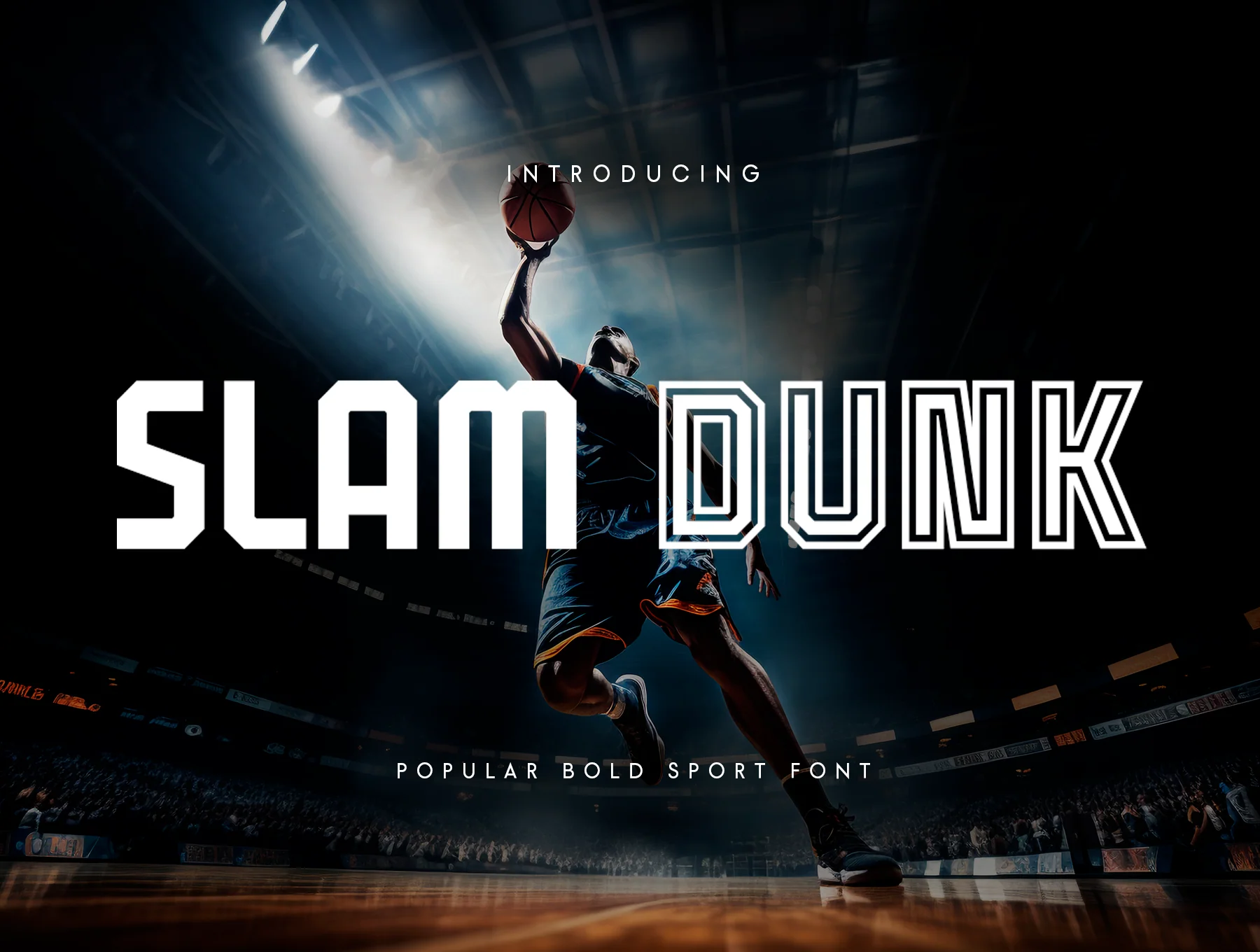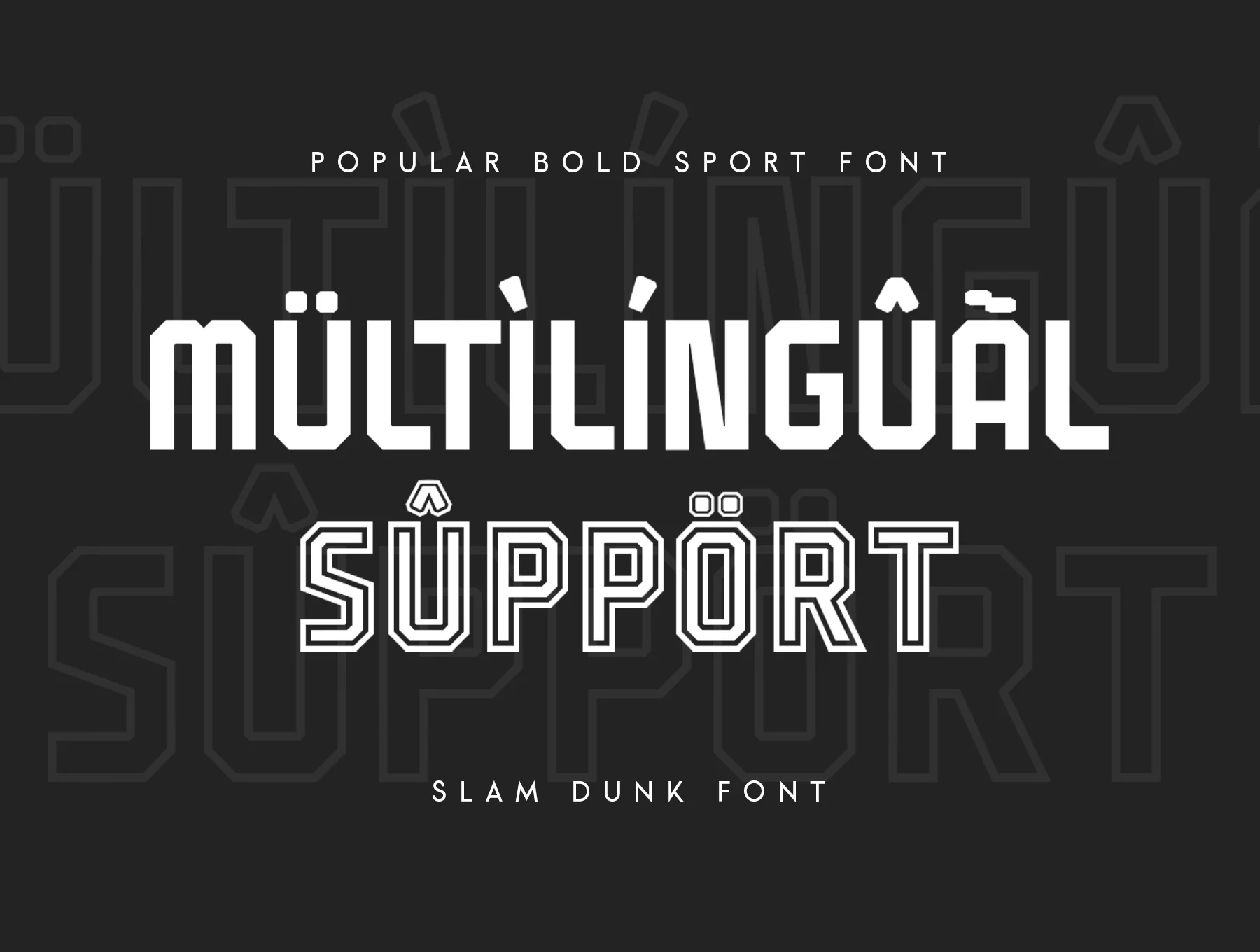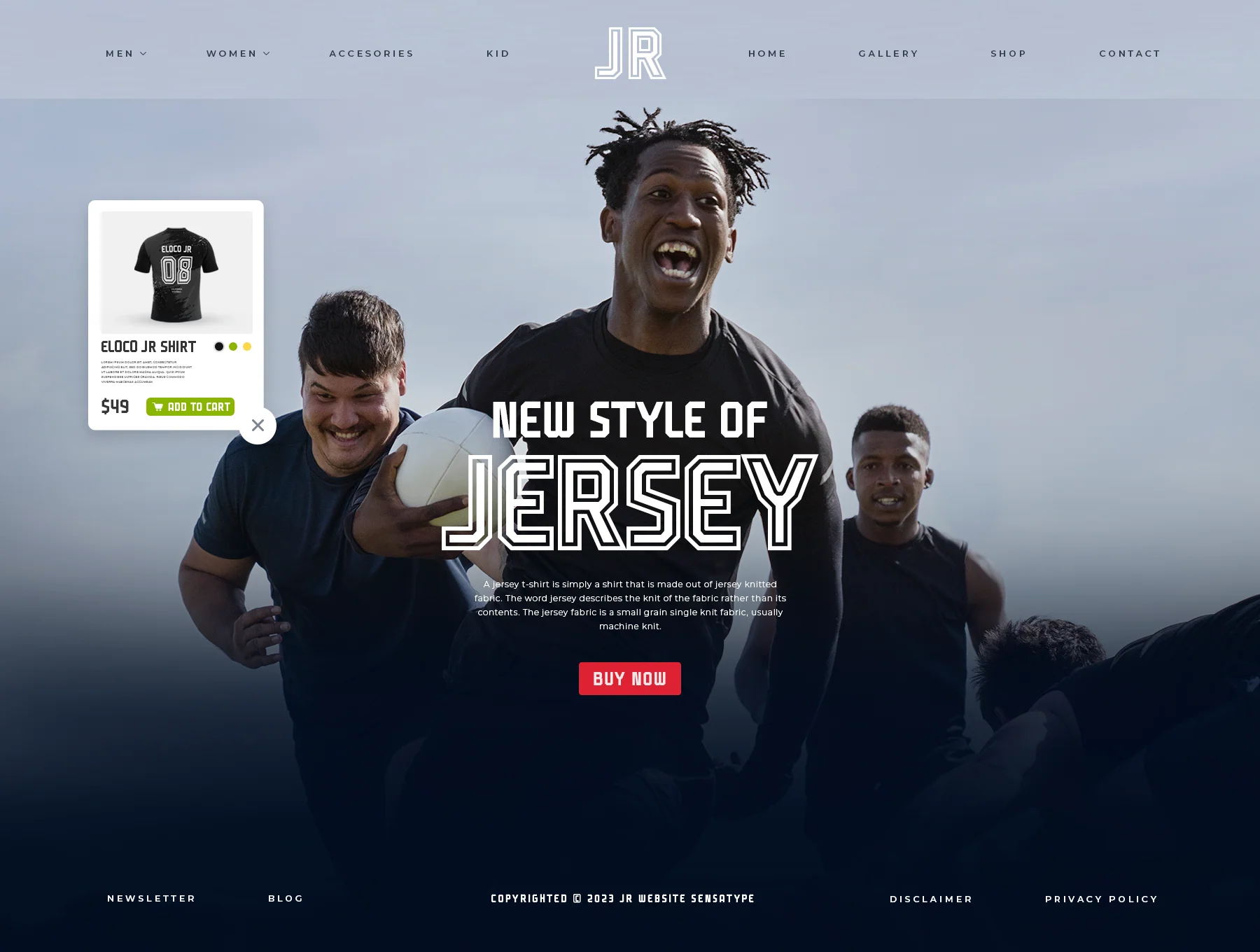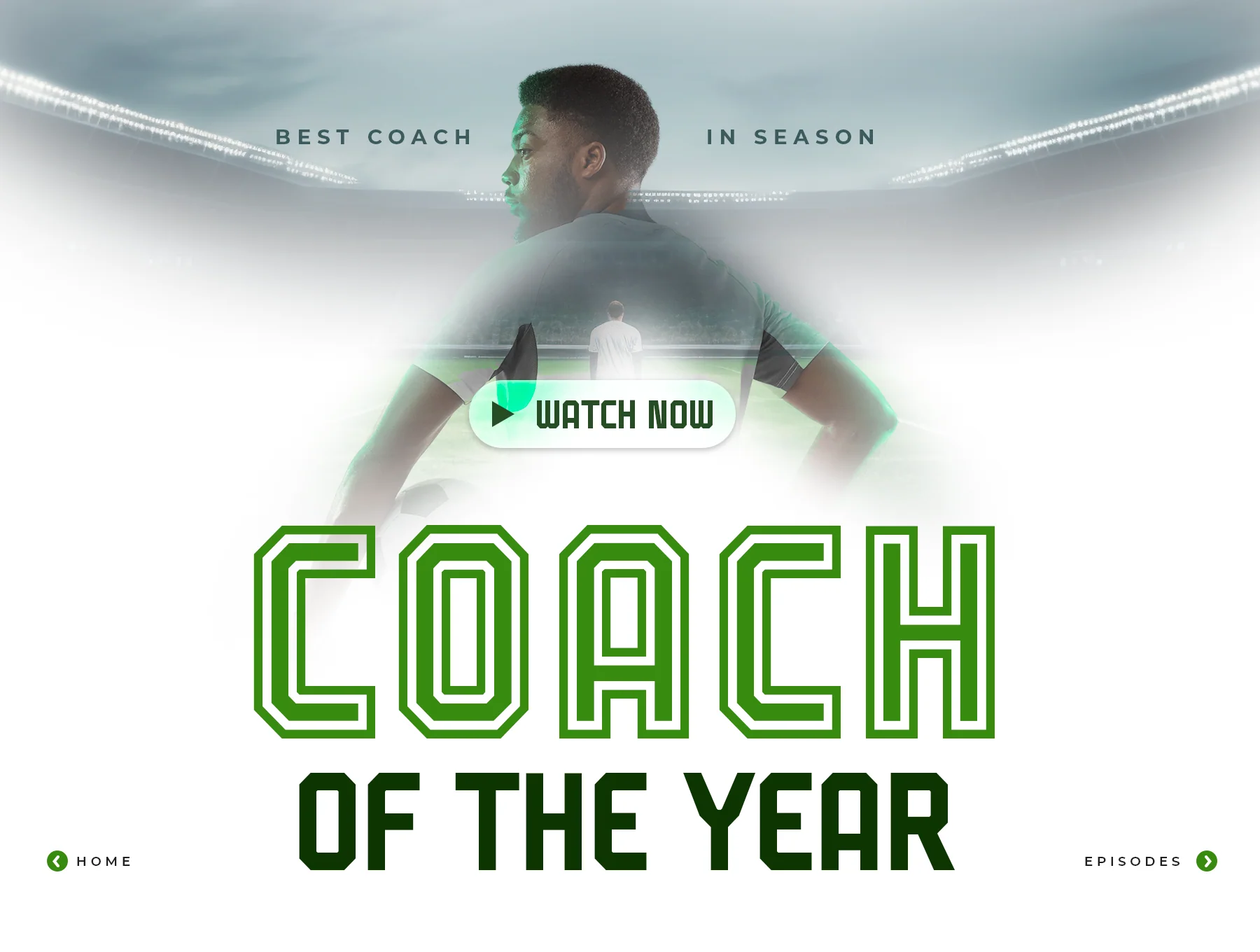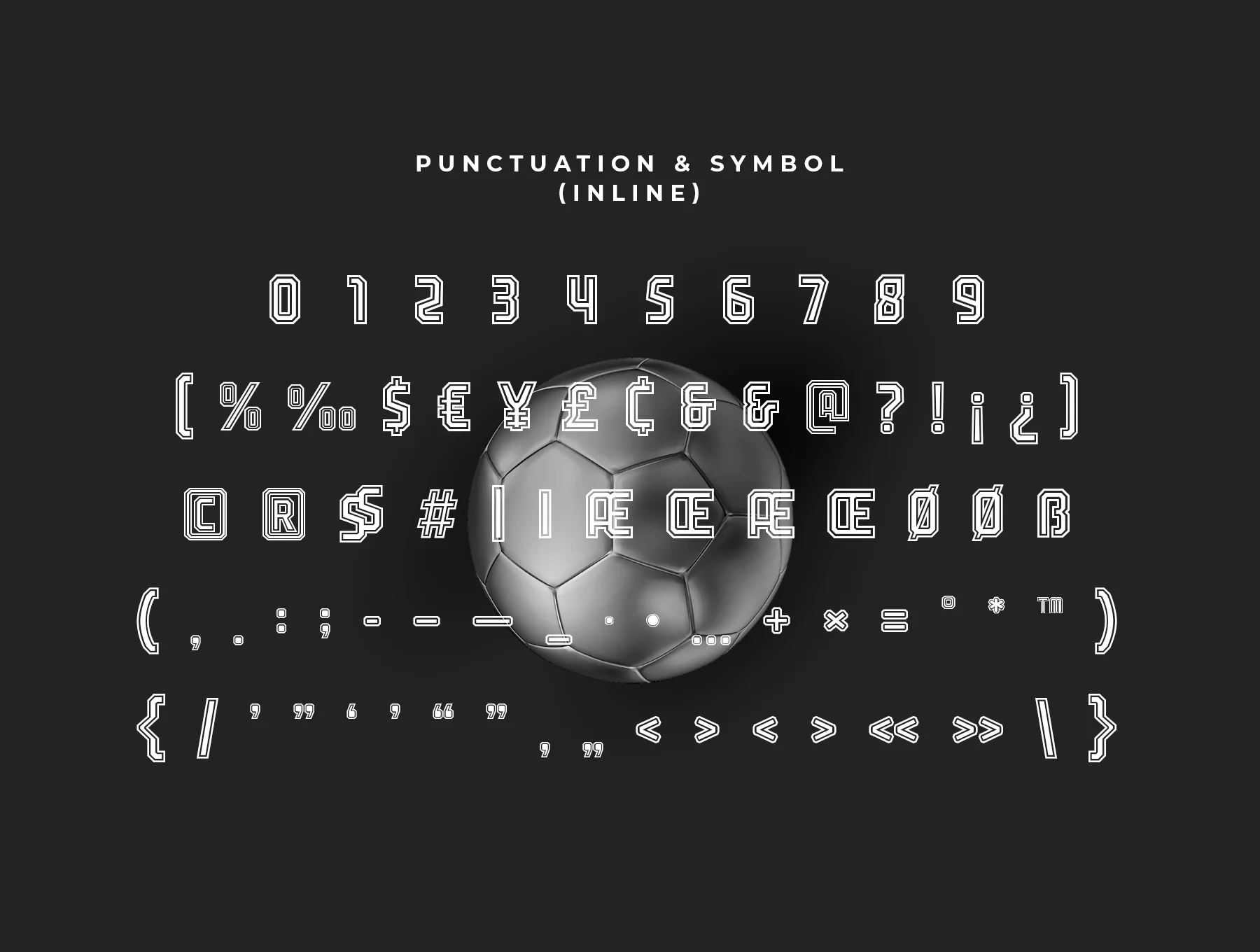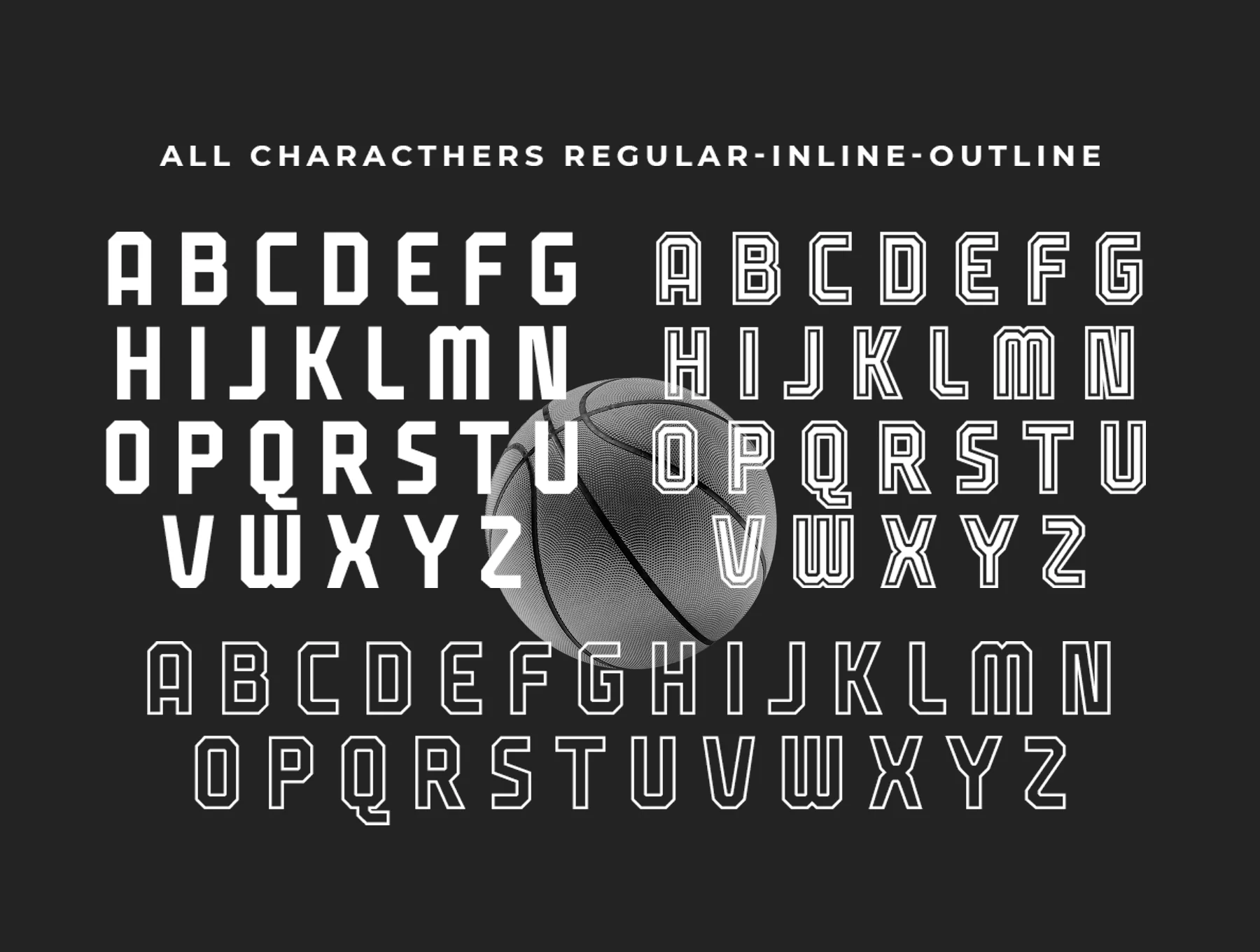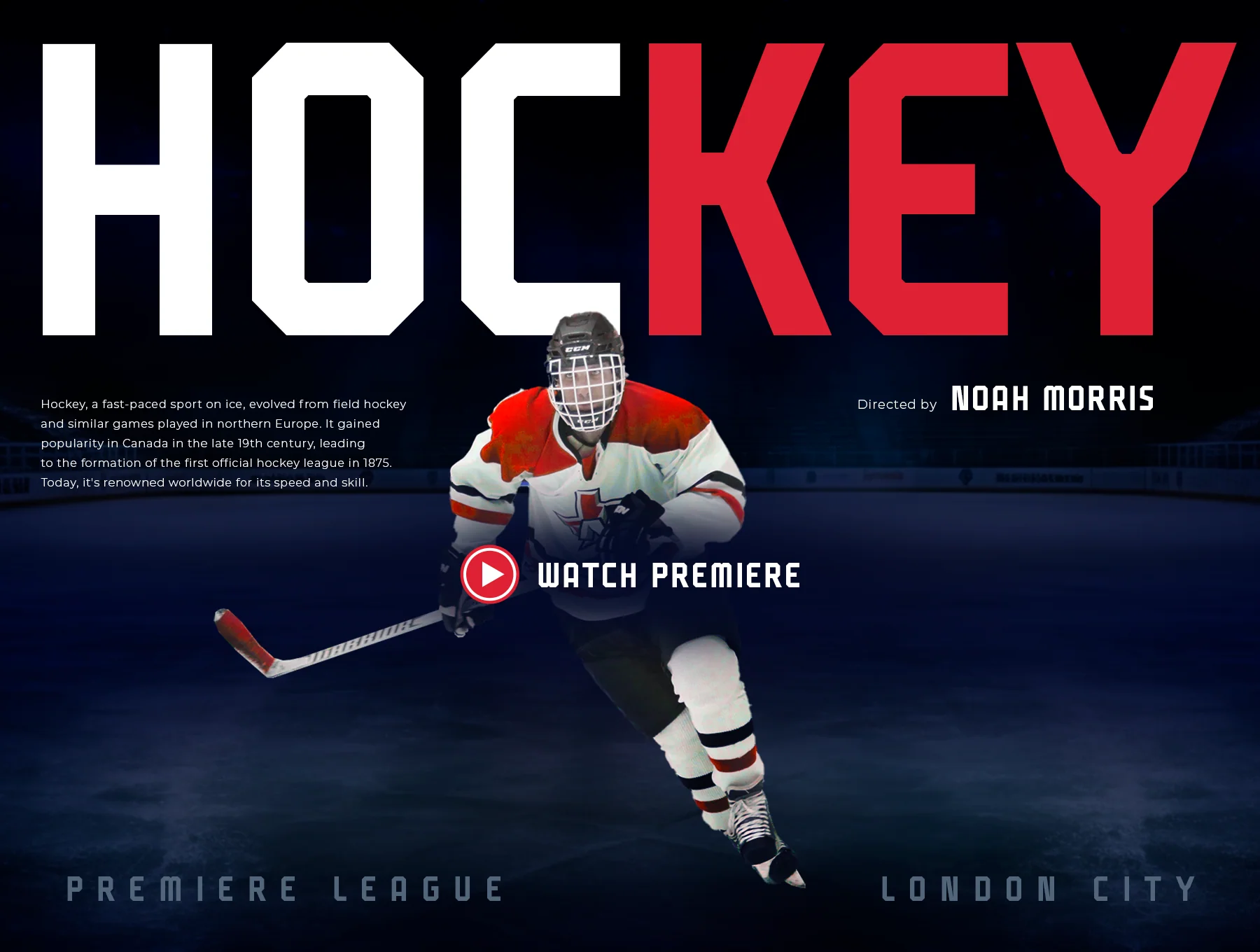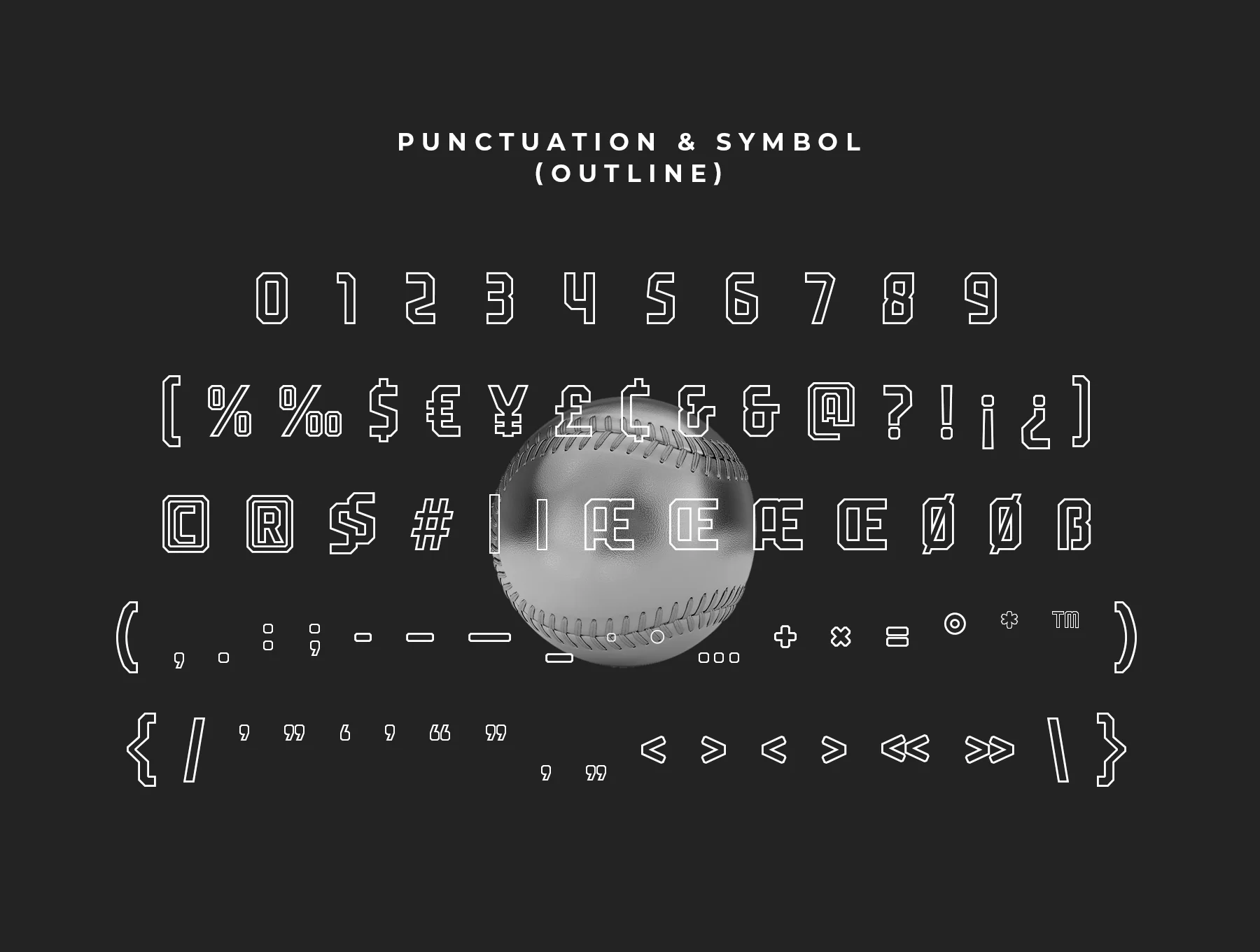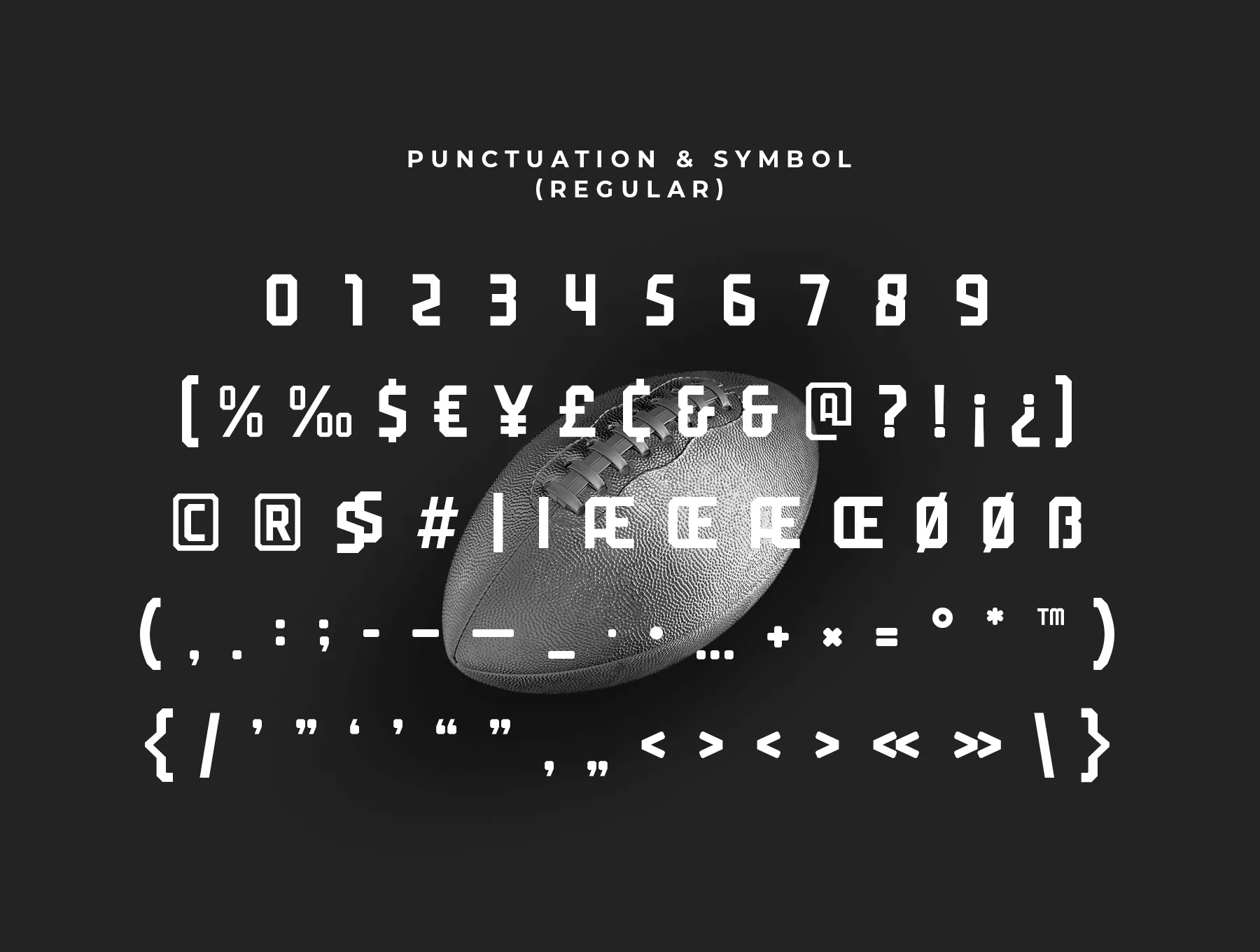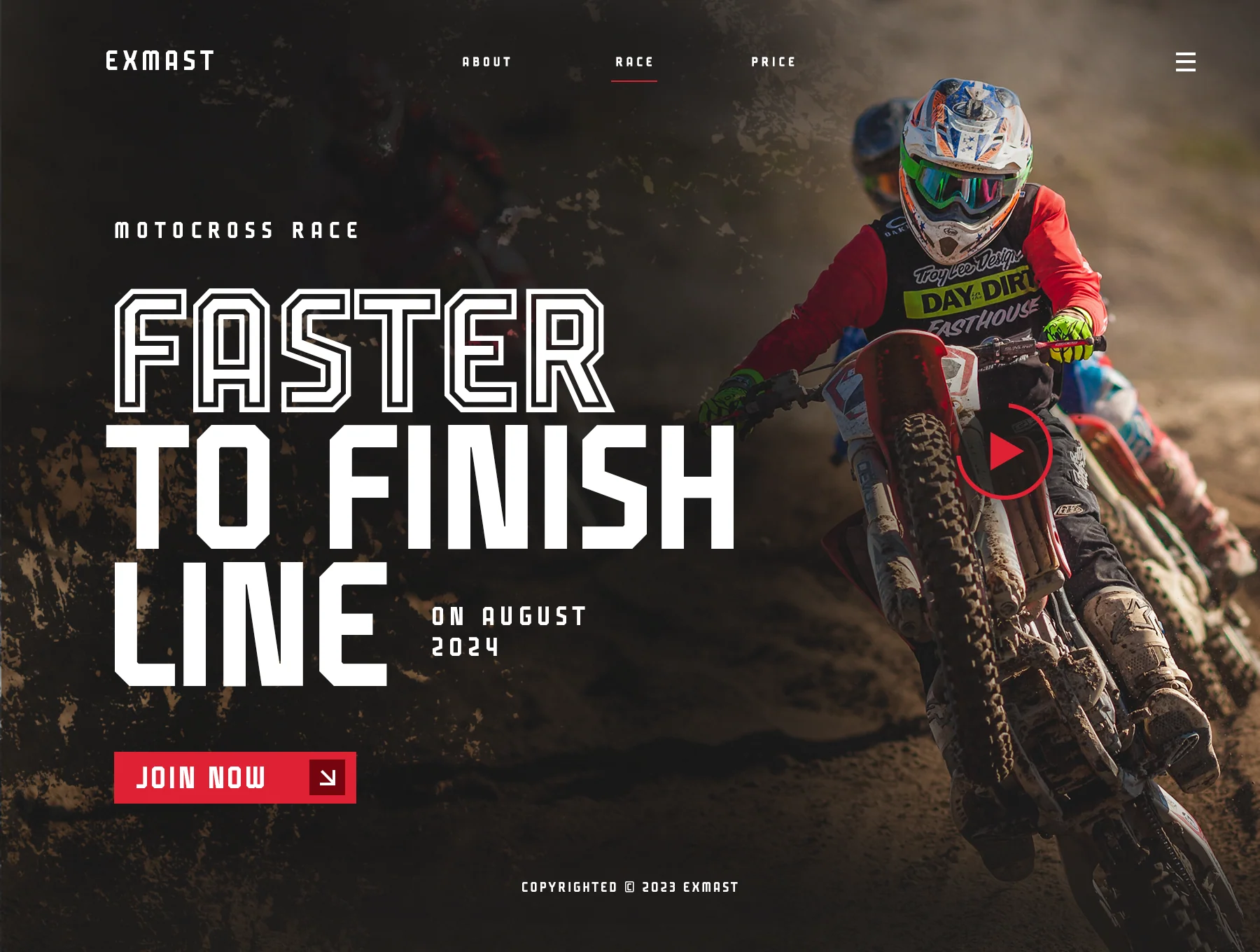
Slam Dunk Font
Slam Dunk - Popular Bold Athletic Font
Numbers and punctuation marks
Complete Slam Dunk Font styles: Regular, Inline, Outline
Uppercase letters only
Slam Dunk is a bold, energetic sports font made for branding, titles, and standout typography. Ideal for sports, tech, action, and fighting themes, it brings a modern power-driven style to headlines and creative projects.